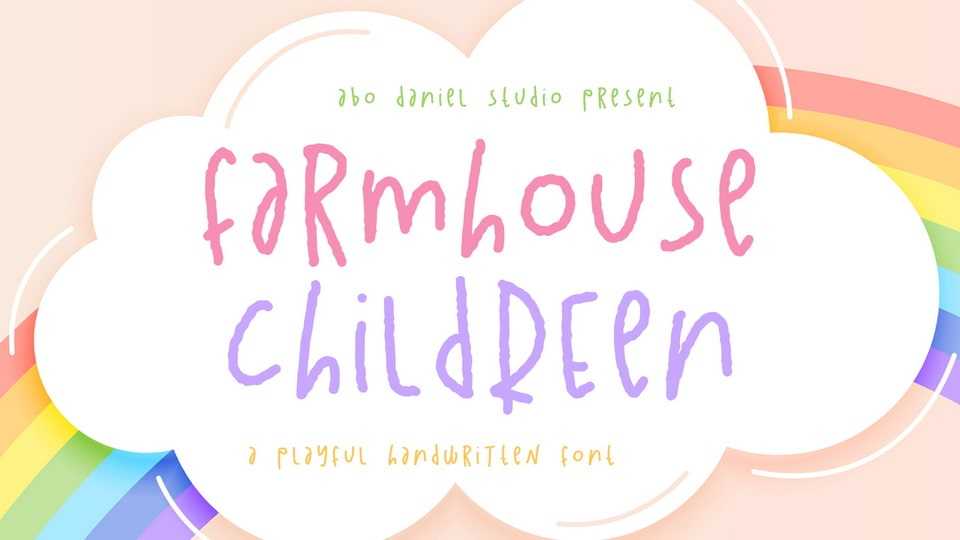
Download Farmhouse Children font, a cute and quirky handwritten typeface. With its incredibly versatile style the font is perfect to create spectacular designs.
Designer: Abo Daniel